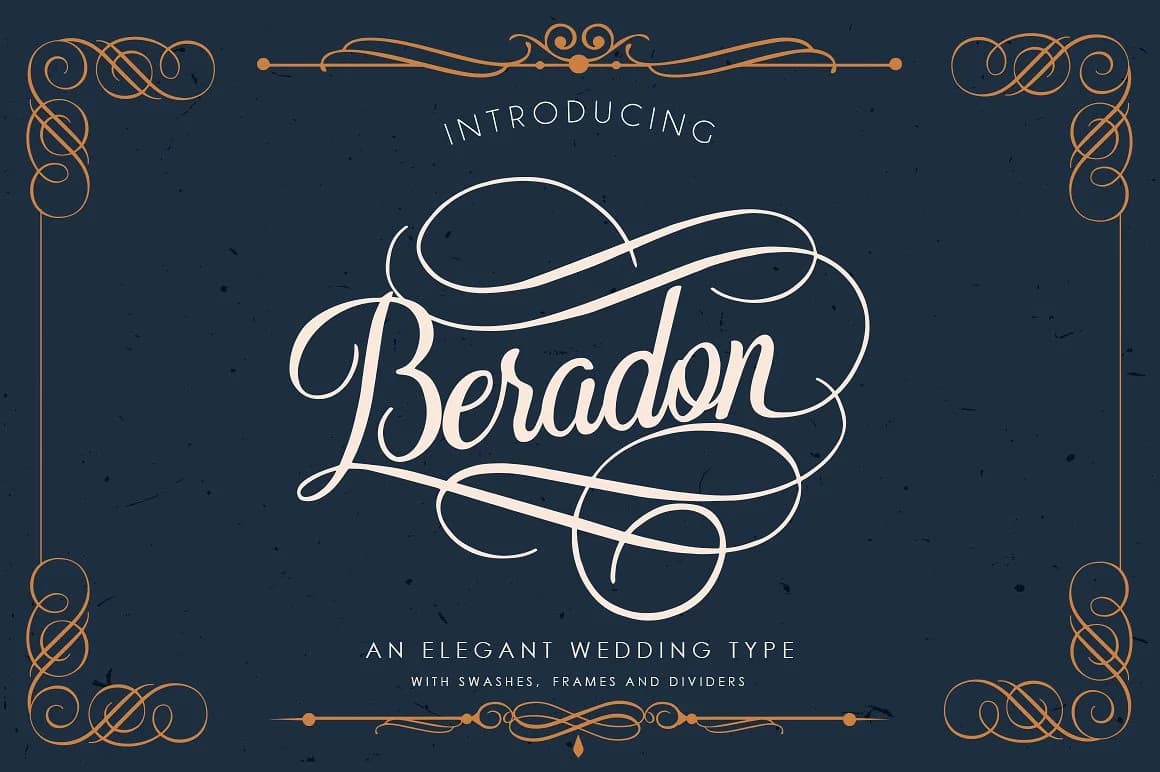
Beradon Font by BlackCatsMedia is a classical script typeface that captures the refined elegance of traditional hand-drawn letterforms with precision. The package includes over 400 alternate characters, delivering substantial typographic flexibility for designers seeking variation and nuance in their work. Additionally, a bonus font within the collection provides a comprehensive set of decorative frames and dividers, allowing you to complete fully cohesive design projects without sourcing complementary ornamental elements separately.
This sophisticated typeface brings polished refinement to luxury branding work, wedding invitation suites, and premium product packaging design. The extensive character alternates make it ideally suited for custom monogram creation and personalized stationery projects, where visual diversity strengthens impact and brings genuine uniqueness to each piece. From upscale greeting card collections to comprehensive event materials, formal programs, and cohesive corporate identity systems, the balanced classical proportions maintain consistent sophistication across different scales and printing contexts. The design carries particular strength for decorative applications requiring refined aesthetics, timeless appeal, and elegant visual communication.
The pairing of the primary script with the included decorative frames creates a complete and versatile design package for your finished projects. Discover Beradon Font on Creative Fabrica to bring these elegant letterforms and ornamental elements to your creative work and design portfolio.
- Elegant, Flowing, Beradon Script
Beradon Font is a script font that shines as a display or heading face. Pair it with a clean sans-serif or serif font for body text β the contrast creates a clear hierarchy while the two styles stay balanced and easy to read.